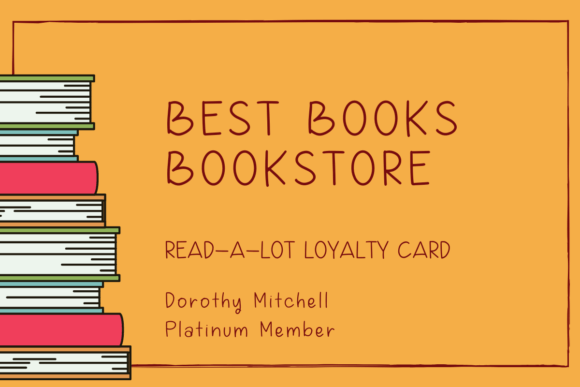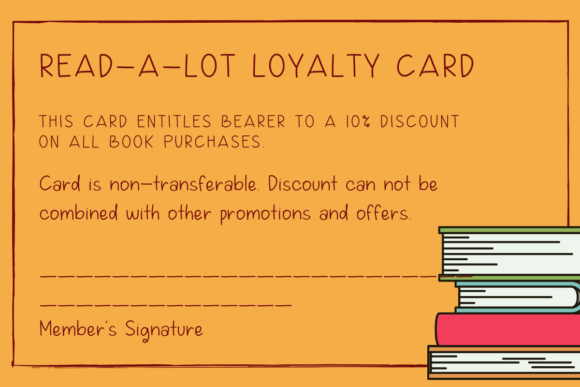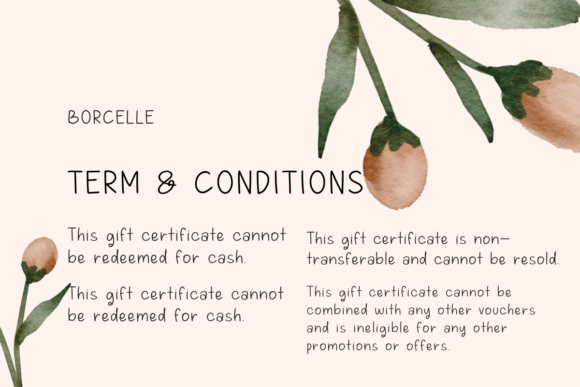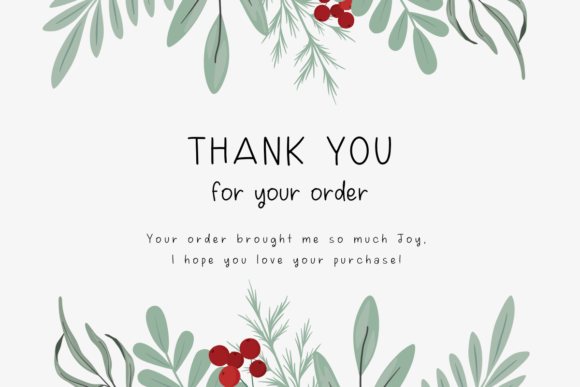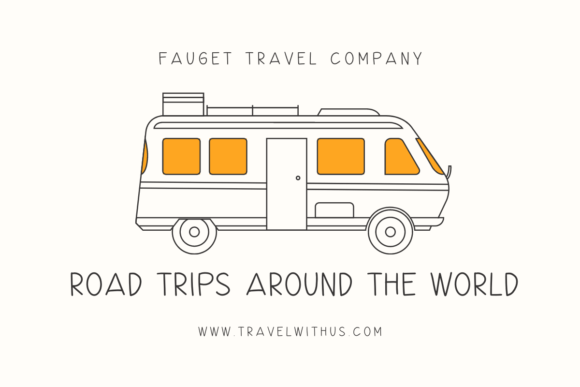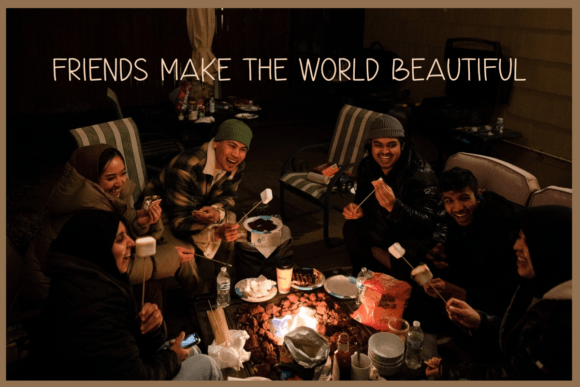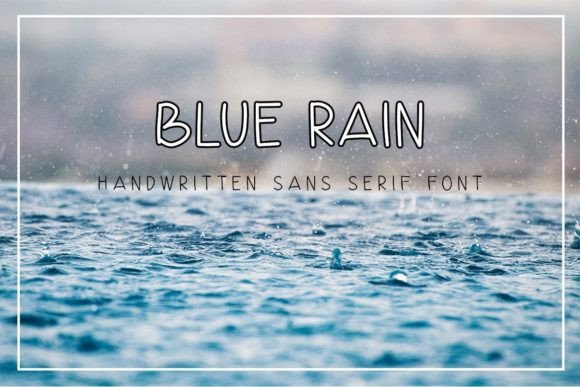
The Blue Rain Font: A Designer’s New Best Friend
I’ll never forget the time I was working on a branding project for a new coffee shop, and I just couldn’t find the right font to capture their quirky, yet sophisticated vibe. I scoured the internet, tried out dozens of fonts, but nothing seemed quite right. That was until I stumbled upon the Blue Rain font. ✨ It was love at first sight! This thin sans-serif handwritten font has since become a staple in my design toolkit, and I’m excited to share its awesomeness with you.
• 💫 Versatility: Blue Rain font is incredibly versatile, making it perfect for a wide range of projects, from branding and logos to quotes, lettering, and cards.
• ✅ Readability: Despite being a thin font, Blue Rain is remarkably readable, even at smaller sizes.
• 🎨 Aesthetic appeal: The font’s delicate, handwritten feel adds a touch of elegance and sophistication to any design.
While Blue Rain font is amazing, it’s not perfect. Here are a few things to keep in mind:
• 🤔 Limited bold options: As a thin font, Blue Rain doesn’t have a bold variant, which might limit its use in certain designs.
• ⚠️ Kerning issues: Like any font, Blue Rain may require some manual kerning adjustments to ensure optimal spacing and readability.
The Story Behind Blue Rain Font
According to the font’s creator, Blue Rain font was inspired by the delicate, hand-painted signs found in small towns and villages. The designer wanted to capture the essence of these charming signs and make them accessible to designers and crafters around the world.
Q: Is Blue Rain font suitable for body text?
A: While Blue Rain font is beautiful, it’s best suited for headlines, titles, and short paragraphs. For longer body text, you may want to choose a more traditional font.